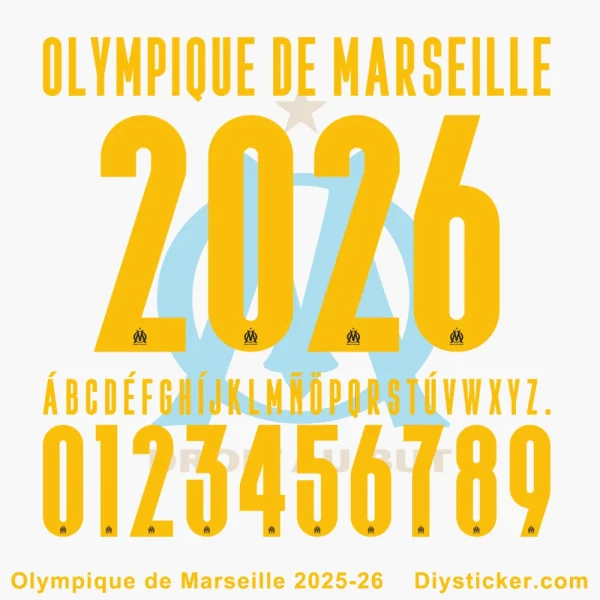
Olympique de Marseille 2025-26 UCL Font Downloads
Elevate your designs with the official Olympique de Marseille 2025-26 UCL Font. This exclusive typeface replicates the style used for the club’s UCL campaign, ideal for creating authentic jerseys, merchandise, and digital content.